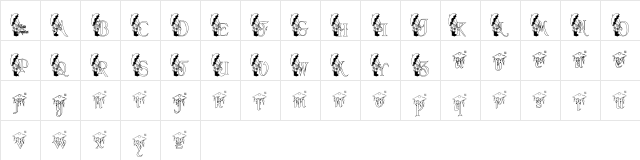
KGRAIN2 Regular
Design Context for KGRAIN2 Typeface
KGRAIN2 is a composed and adaptable typeface that performs quietly and consistently across a wide range of design contexts.
Pro Tip: Use KGRAIN2 in both headline and body roles to test its range before committing to a single application.